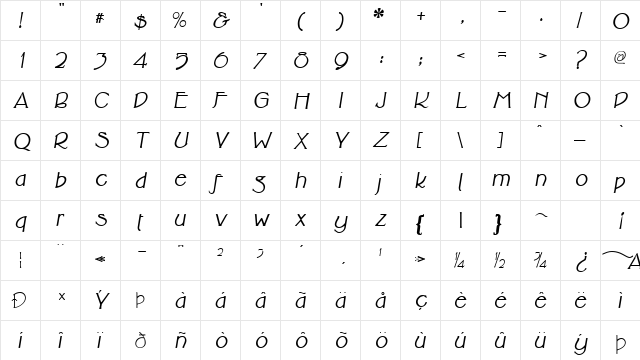
Cupola BoldItalic
Design Context for Cupola Typeface
Cupola is a composed and adaptable typeface that performs quietly and consistently across a wide range of design contexts. Its italic angle brings a sense of urgency and motion to the letterforms. Its bold stroke weight gives it real presence on the page.
Pro Tip: Try Cupola for annotation and caption copy alongside an upright companion — the contrast in angle creates a dynamic but ordered typographic system.